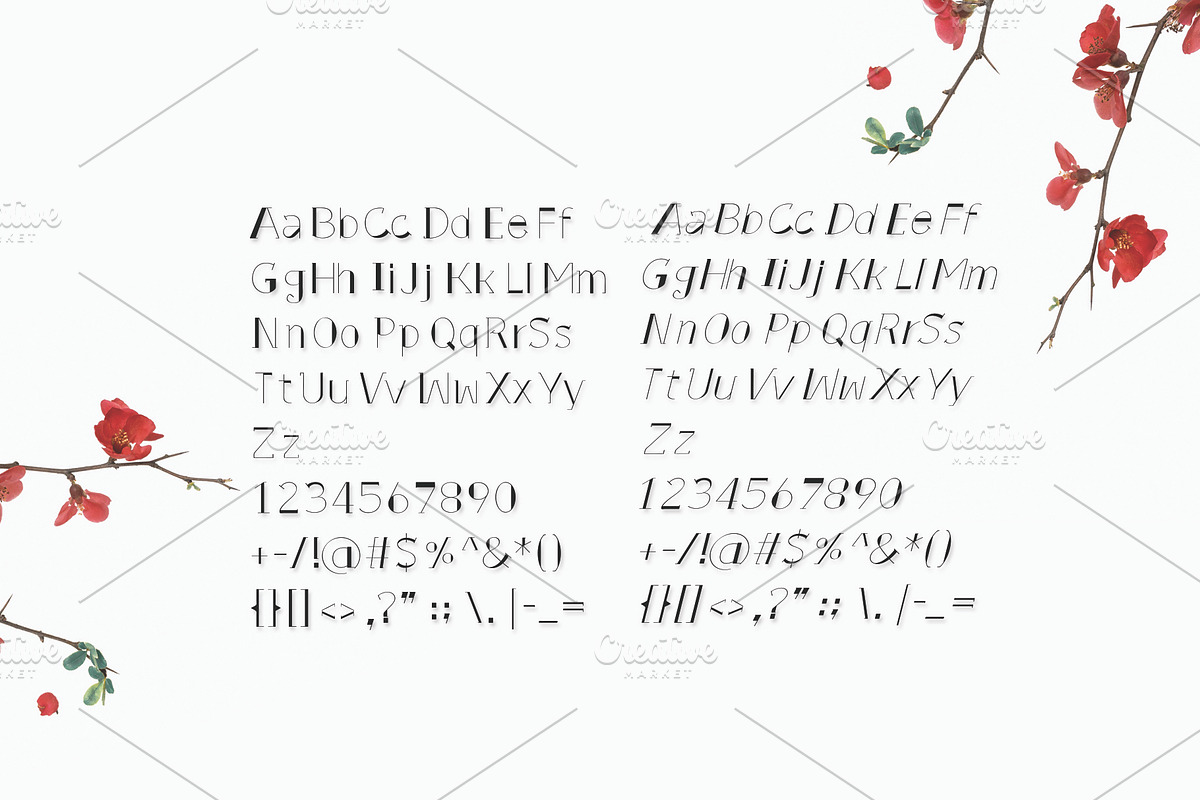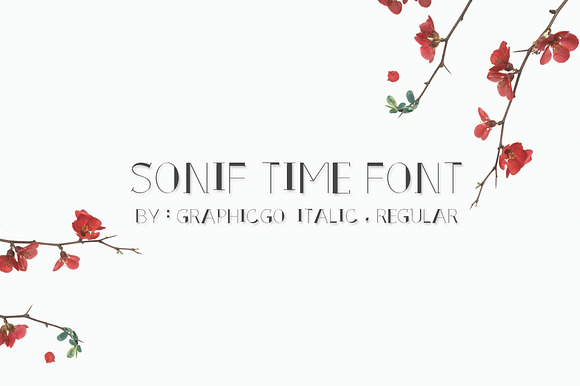
Sonif Time Font
Sonif Time Font is thin line with black shade writing style. It 's perfect for cards, posters, wall art, branding, diy projects, greeting cards, labels, quotes, packaging, websites and much more.
Uppercase and Lowercase
Sonif Time Font by Graphicgo fits naturally into Branding, posters, packaging, typography.